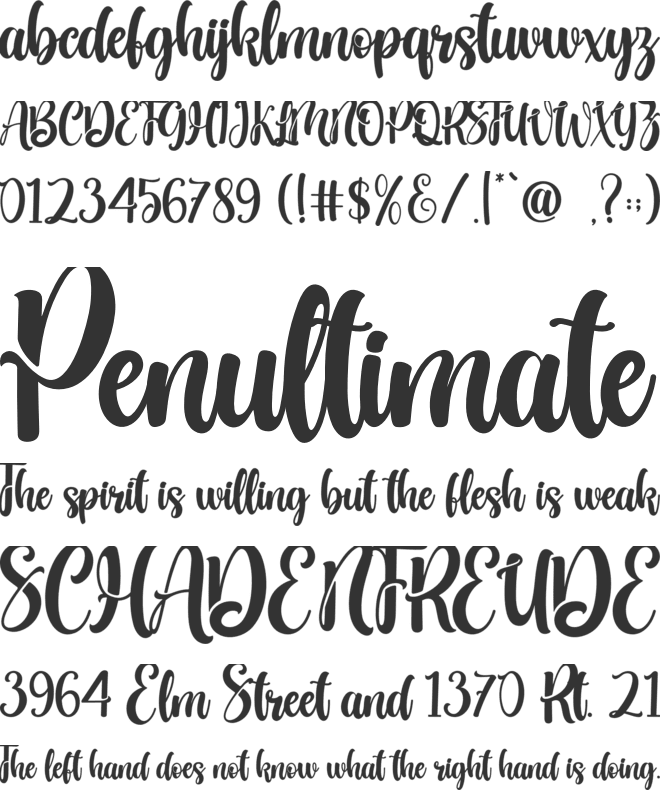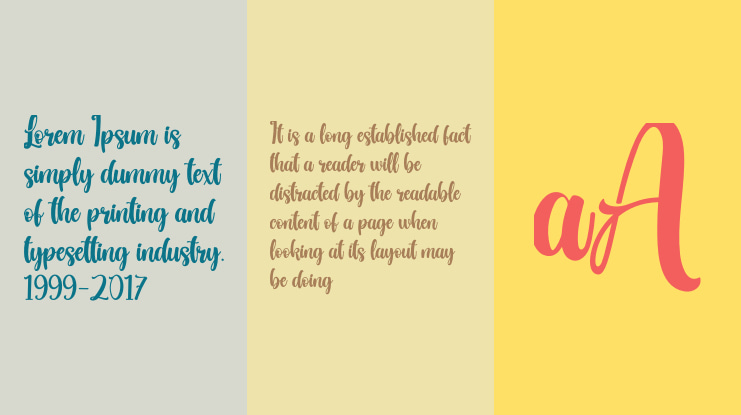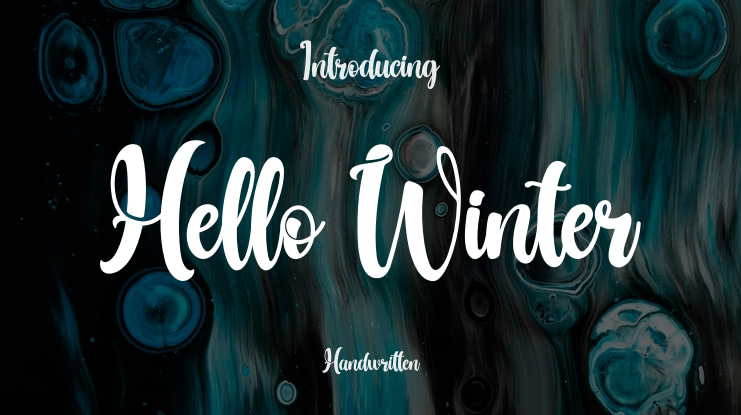
Hello Winter is a handwritten font that is stylish, unique, bold, and has a very neat kerning. There are lots of handwritten fonts that have characters, but this time the font that I created this time is no less interesting and unique. This font will look great on a variety of ideas and use them to get creative in outfits, wedding invitations, business cards, t-shirt branding, pouch or bag branding, social media posts good, greeting card, crafting, and more!